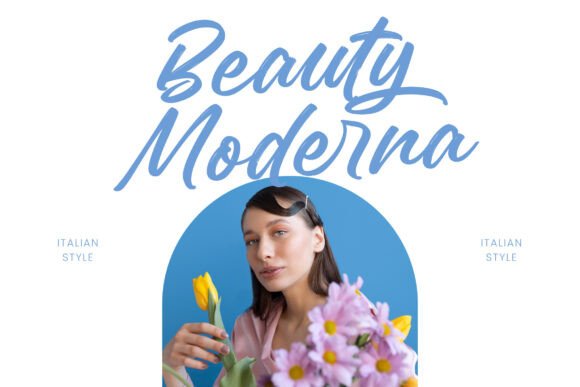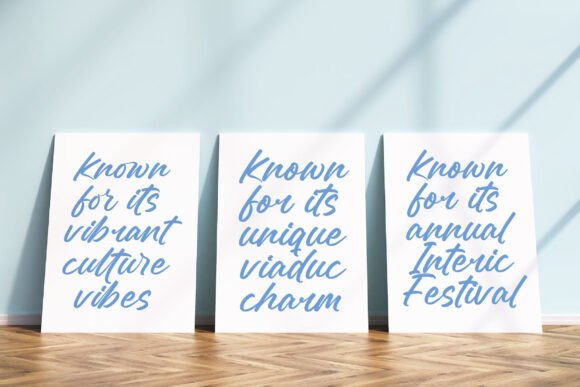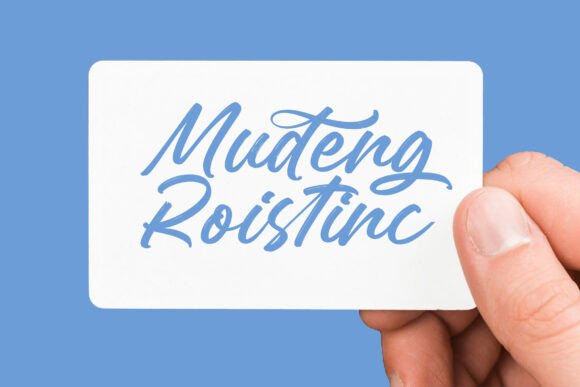
Britany Ristov Font
About the Britany Ristov Font
Get ready to be inspired by Britany Ristov Font, a fresh and dynamic typeface for modern creators. Britany Ristov – Bold Brush Font , from Letterena, is a Luxury Script font, suitable for any projects such as: logos, branding projects, homeware designs, product packaging, mugs, quotes, posters, shopping bags, t-shirts, book covers, name card, invitation cards, greeting cards, label, photography, watermark, special events, and all your other luxury and beautiful projects that need a Luxury Script taste.
Britany Ristov excels in headline treatments, short text blocks, and applications requiring a touch of elegance, such as logos, wedding invitations, and high-end product packaging. Its bold strokes make it unsuitable for body copy or UI elements where readability is paramount; extended use will strain visual comprehension.
This font’s inherent luxury is best complemented by pairing it with clean sans-serif fonts like Montserrat or Lato for a modern contrast, or a classic serif like Garamond or Playfair Display for a more traditional feel. Avoid pairing it with other script fonts, which might create visual clutter.
The font projects a sophisticated, bold, and slightly glamorous personality, ideal for brands aiming for a premium or luxurious image.
Britany Ristov Font Usage Examples
Britany Ristov Font Example